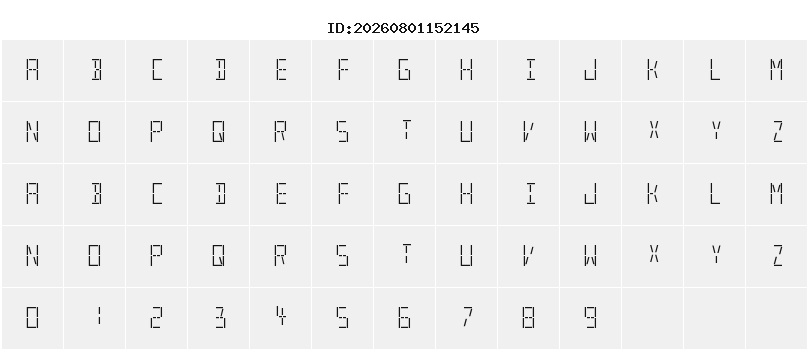
• Font Name: LED S&S
• Designer: Matthew Welch
• Manufacturer: I Shot the Serif
• Description: Unlike most LED/LCD style fonts mine could be recreated with an actual LED. I created this font working from memories of the good old Speak and Spell display. Since I don't have an actual Speak and Spell to work from I had to just do as well as I could in its spirit. Be warned that some characters look just like others. The ( and the <, for instance. Also C and [. Most of these will be pretty clear in context. To see all the sections of the LED "lit up" at once use character 127 (hold down alt and type 0127 on the numeric keypad). This font is, of course, monospaced.